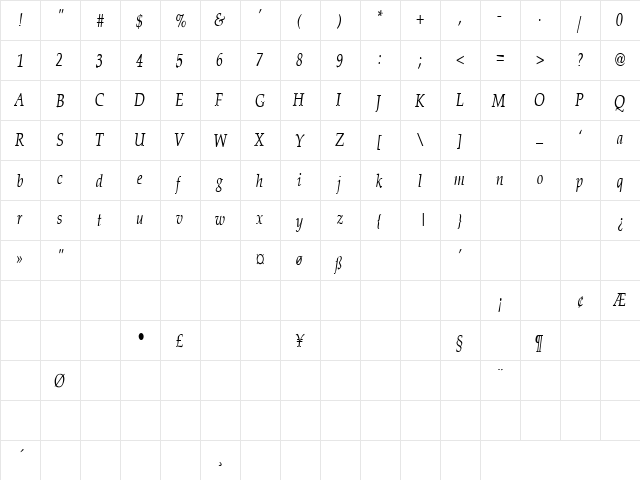
Whipping Post 3 Regular
Design Context for Whipping Post 3 Typeface
Whipping Post 3 offers clean, dependable letterforms without strong stylistic allegiance, making it a practical choice for designers who need flexibility.